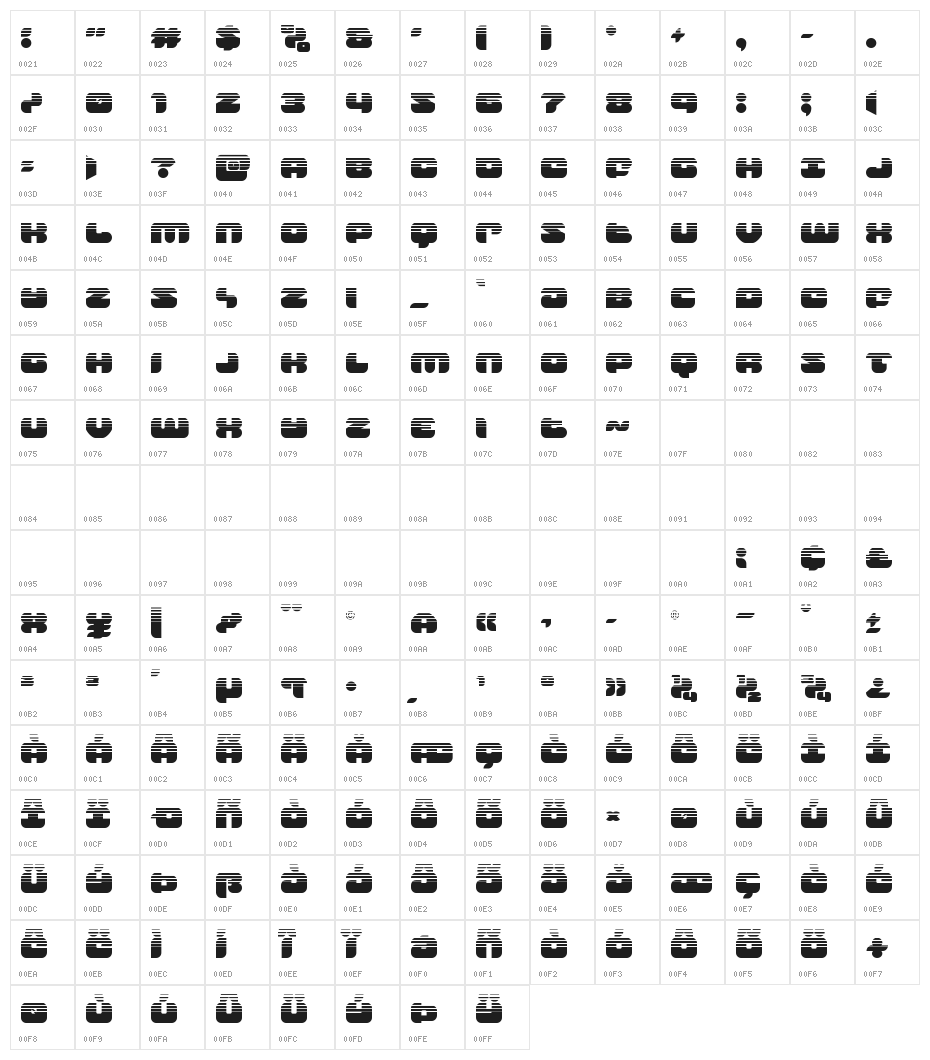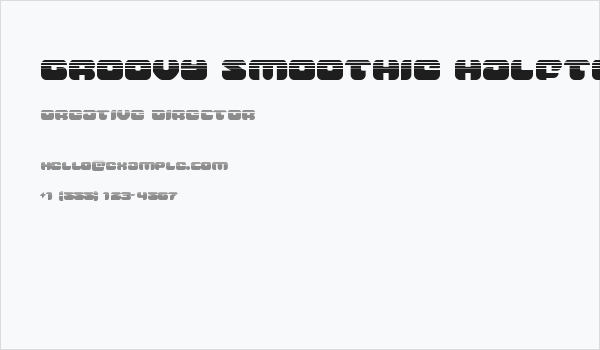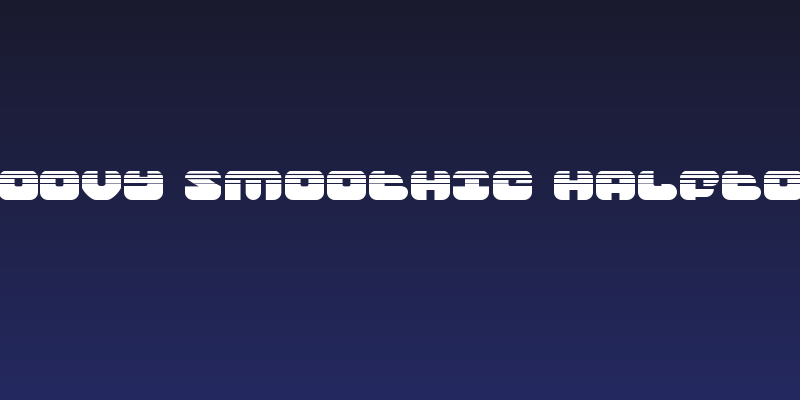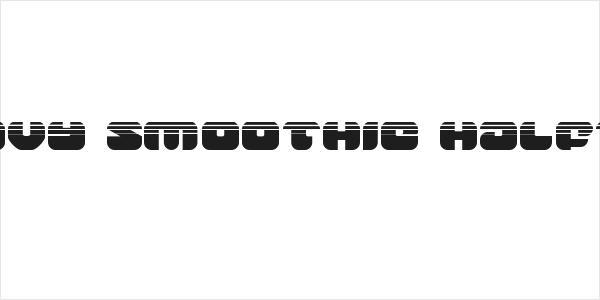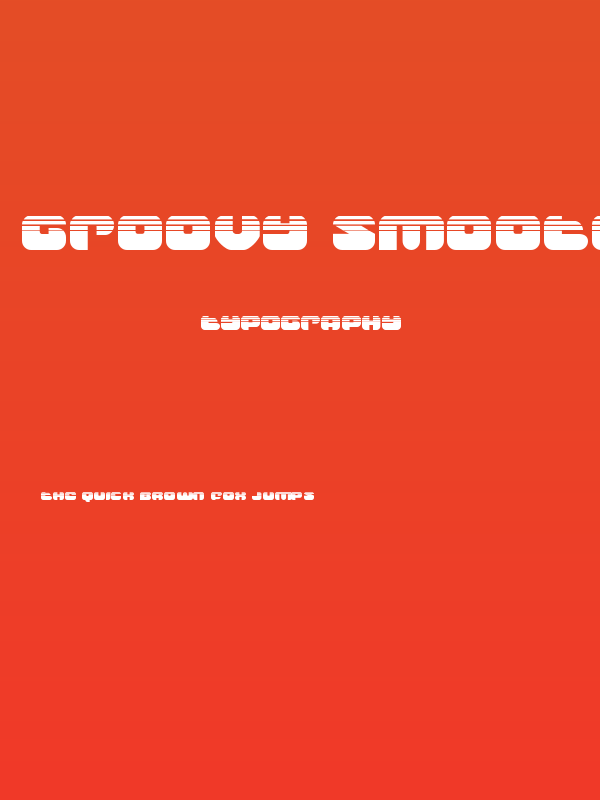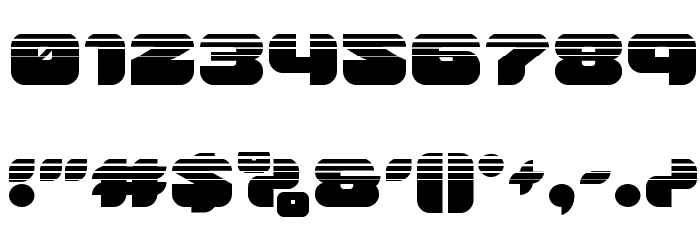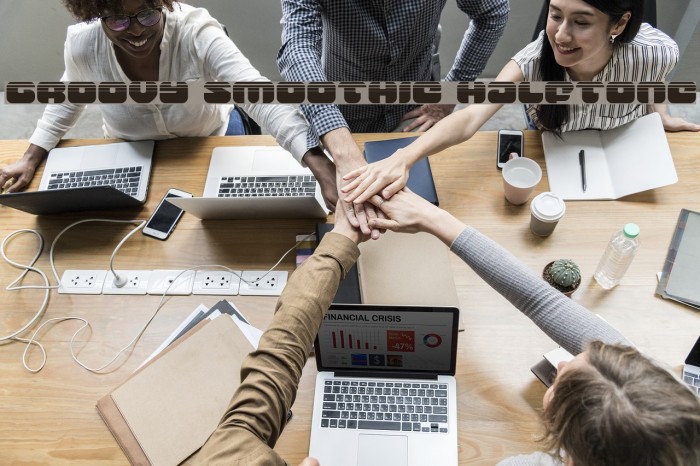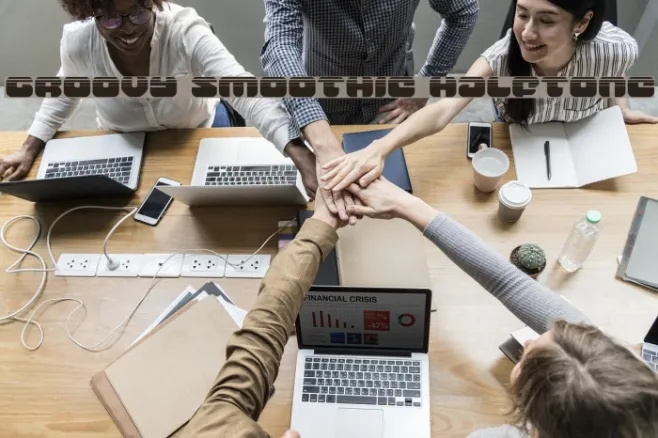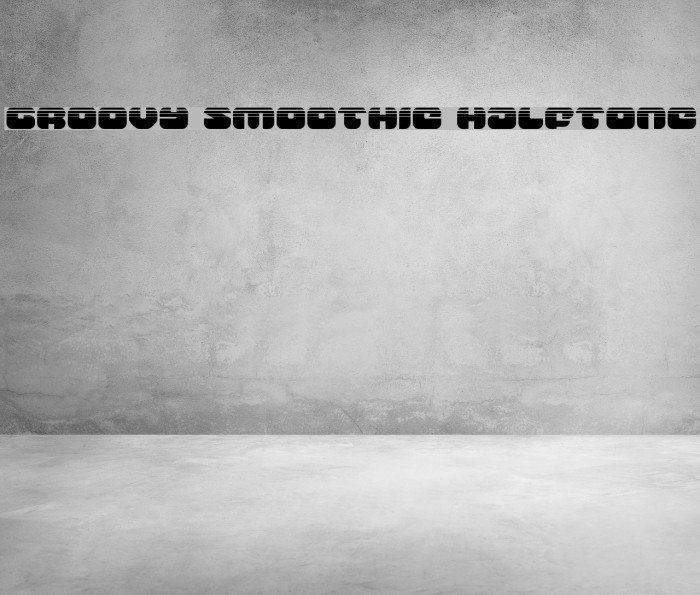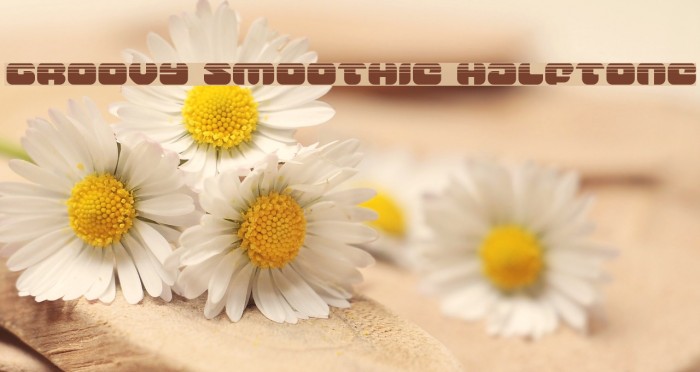
Groovy Smoothie Halftone Font
This font features a bold, geometric design with a distinct halftone effect, creating a retro and futuristic vibe. The characters are wide and blocky, with rounded edges that soften the overall appearance. The halftone pattern adds texture and depth, making it visually striking and unique. The uppercase and lowercase letters maintain a consistent style, while the numbers and special characters complement the overall aesthetic. This font is ideal for projects that require a bold statement and a touch of nostalgia.
| Overall Style | Retro-Futuristic |
| Proposed Projects | Ideal for posters, album covers, branding, and any design needing a bold, retro-futuristic touch. |